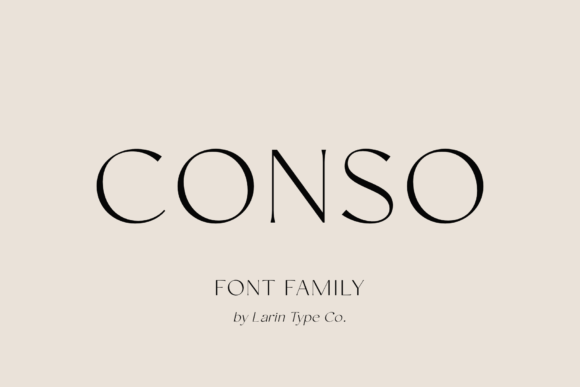
Introducing Conso Font - the ultimate choice for designers and creatives seeking the best font for flip cards. Crafted by the talented Pasha Larin, this elegant and modern sans-serif font family is here to elevate your projects to new heights.
With its sleek and eye-catching design, Conso Font is guaranteed to captivate your audience. Its versatility knows no bounds, making it the perfect companion for any project you have in mind. Whether you're designing logos, creating stunning advertisements, crafting packaging, or even designing book covers and magazines, Conso Font has got you covered.
One of the key features that sets Conso Font apart is its impeccable contrast. This unique characteristic ensures that your text stands out, making a bold statement that commands attention. No matter the size or weight, each style of Conso Font delivers a powerful impact that leaves a lasting impression.
Easy readability is another standout quality of Conso Font. Every letter and character has been meticulously crafted to ensure clarity and legibility, allowing your message to shine through effortlessly. Whether it's headings, descriptions, or body text, Conso Font guarantees a seamless reading experience for your audience.
But what truly sets Conso Font apart from the rest is its incredible flexibility. With seven weights ranging from thin to bold, you have the freedom to express your creativity and explore various design possibilities. Conso Font empowers you to convey emotions, create visual hierarchy, and bring your ideas to life with ease.
To make your experience even more delightful, Conso Font is PUA encoded. This means you have effortless access to an extensive collection of stunning glyphs and ligatures. Enhance your designs and add that extra touch of sophistication effortlessly.